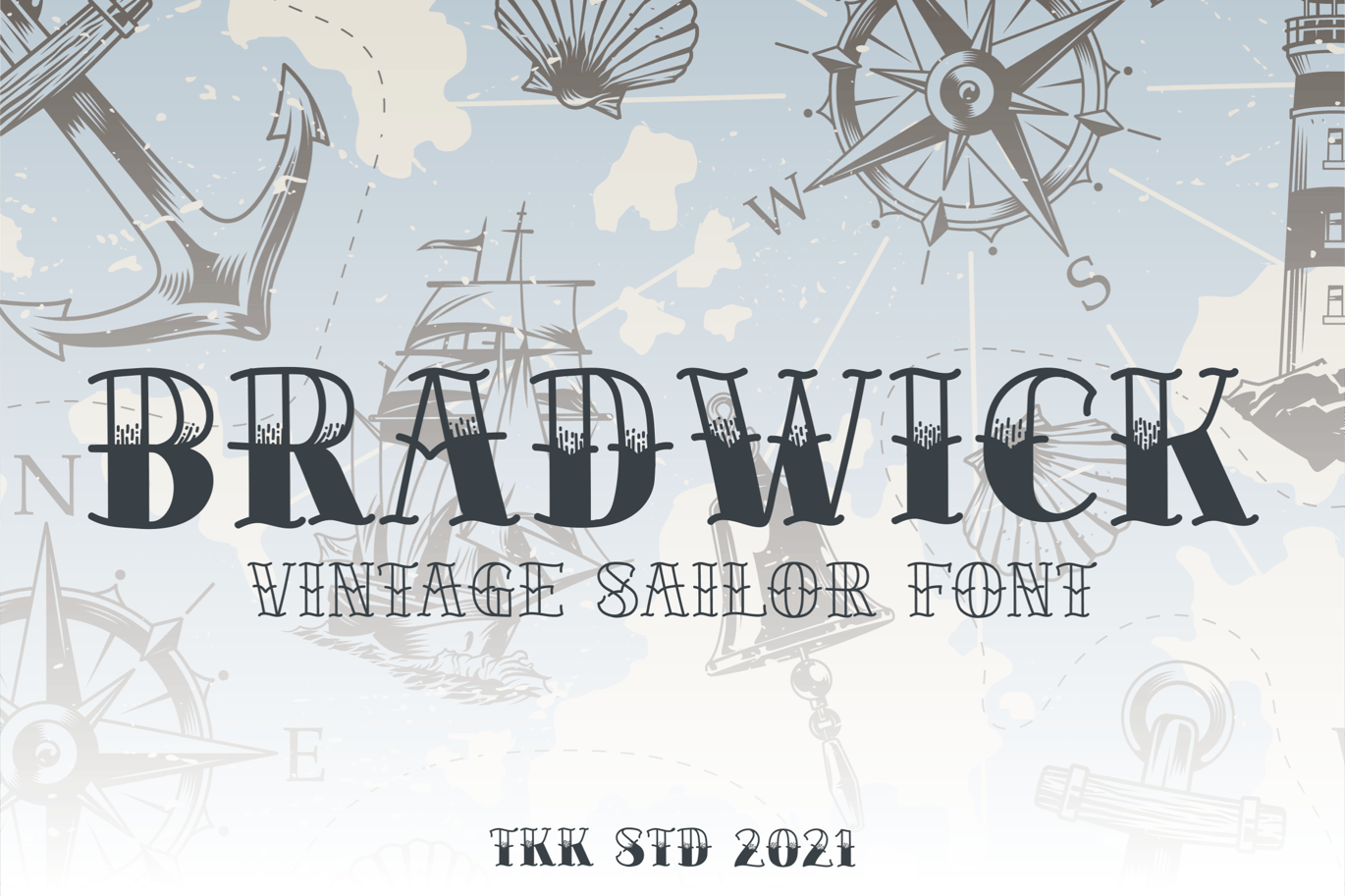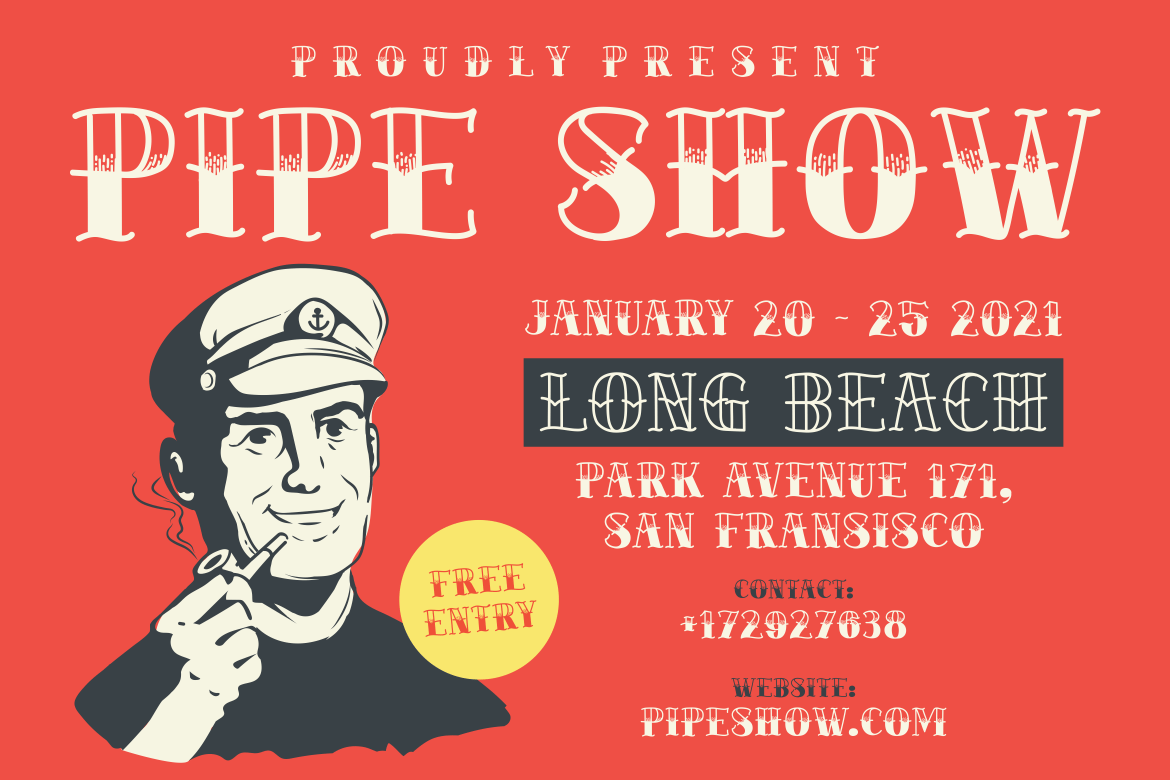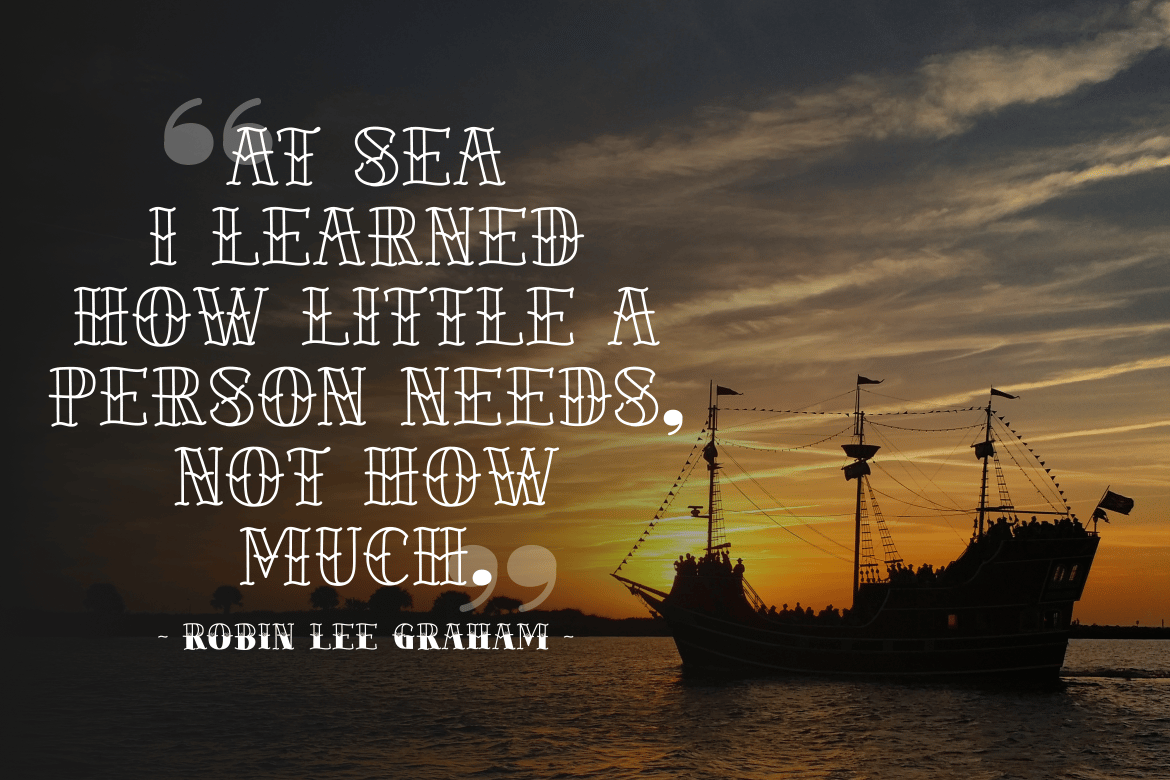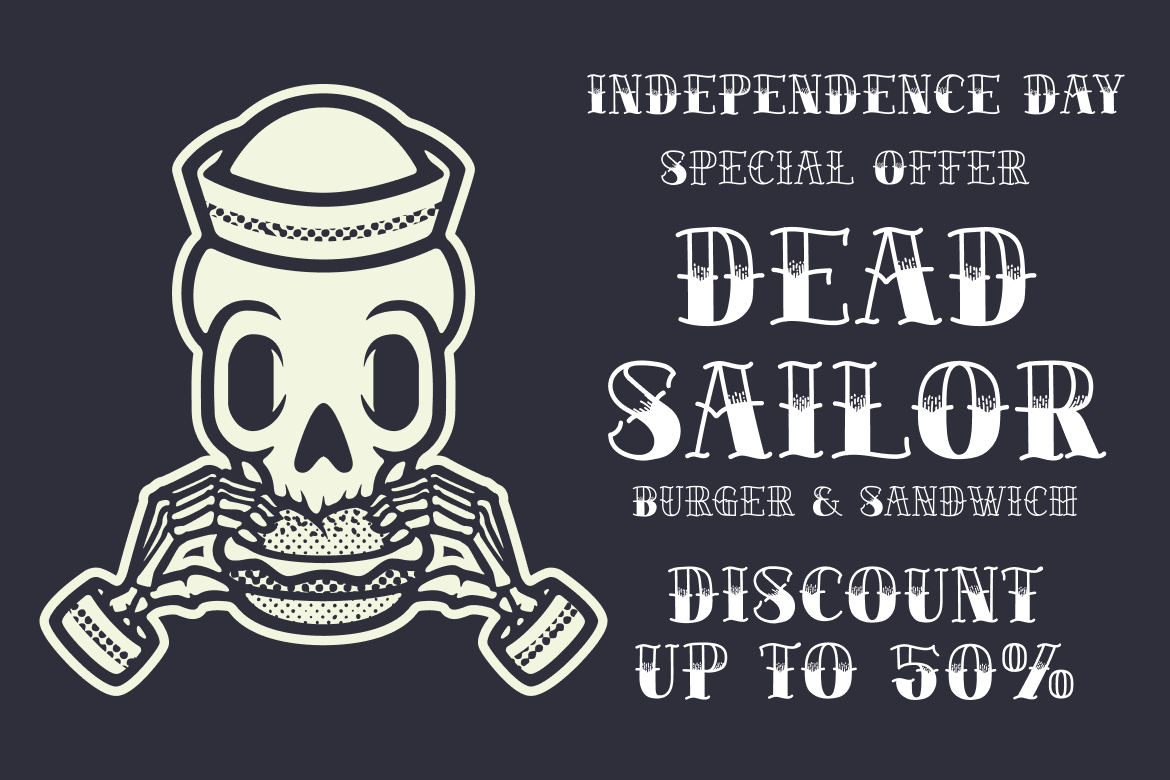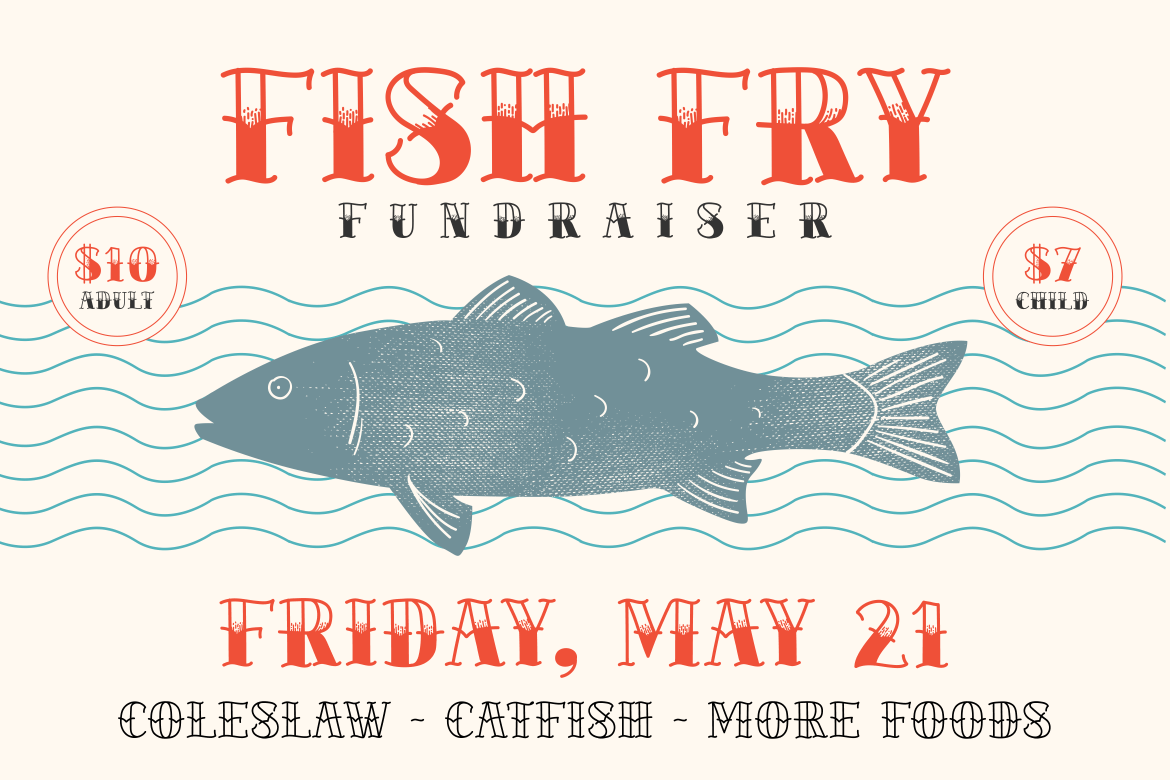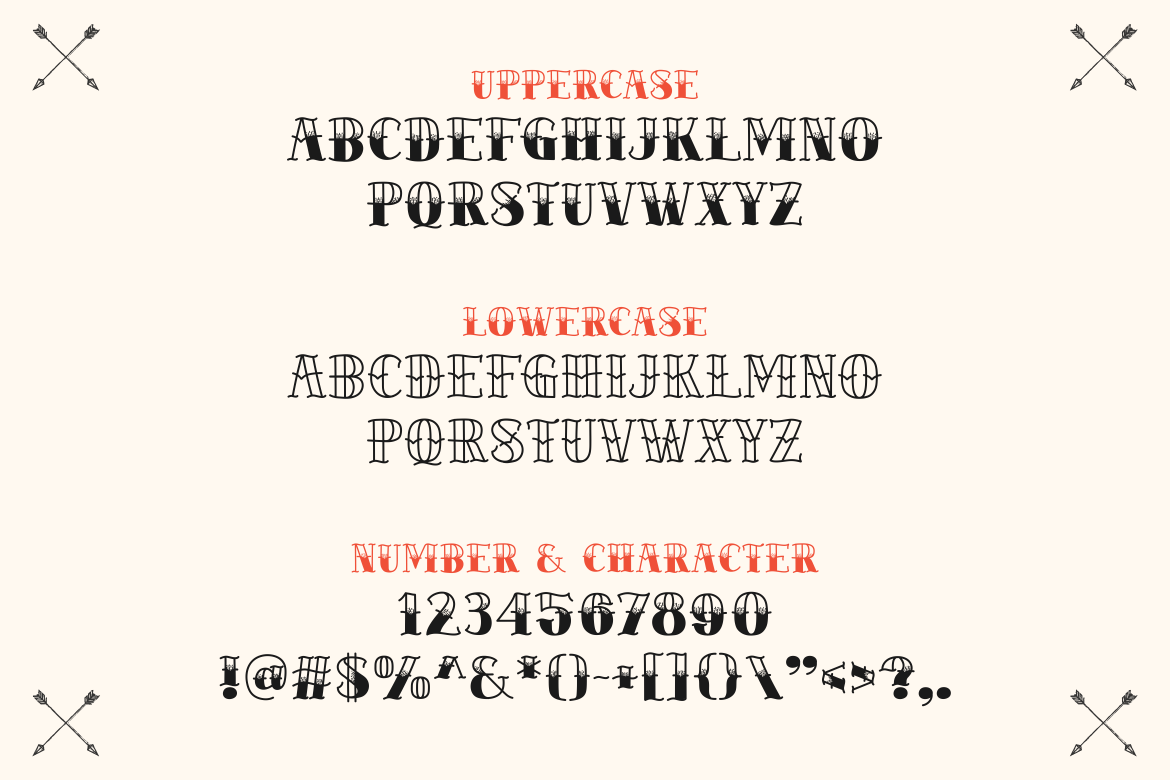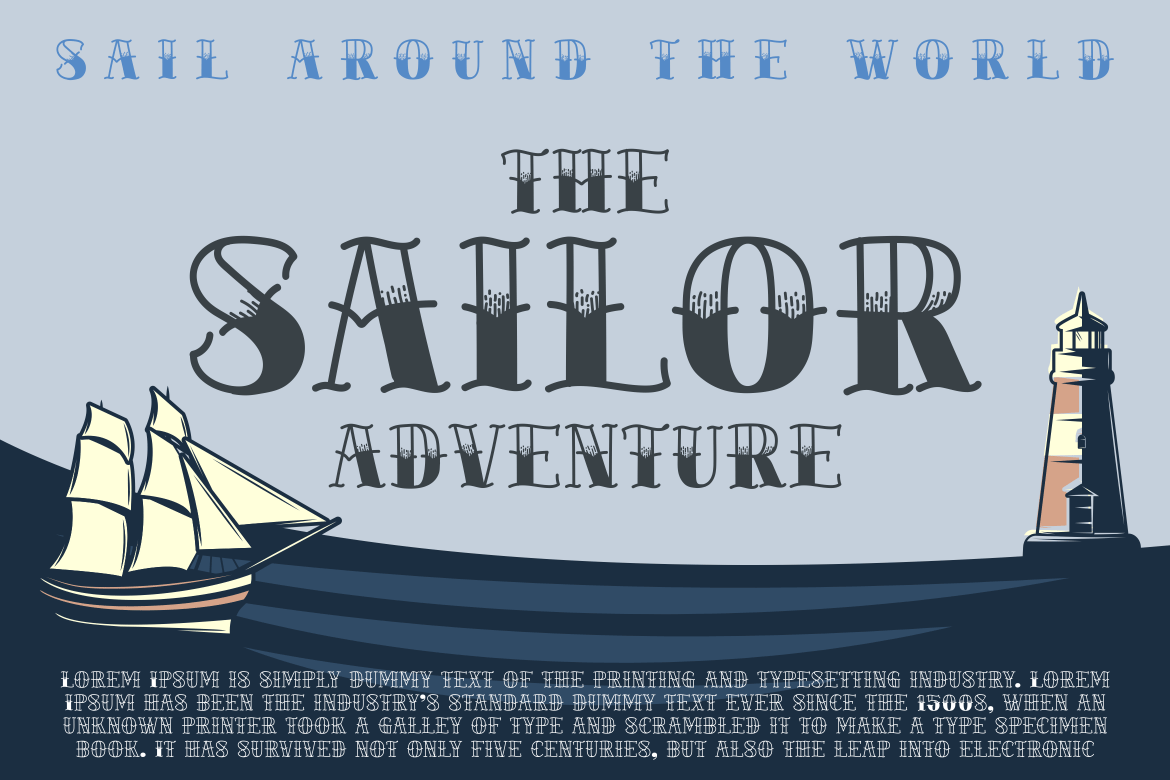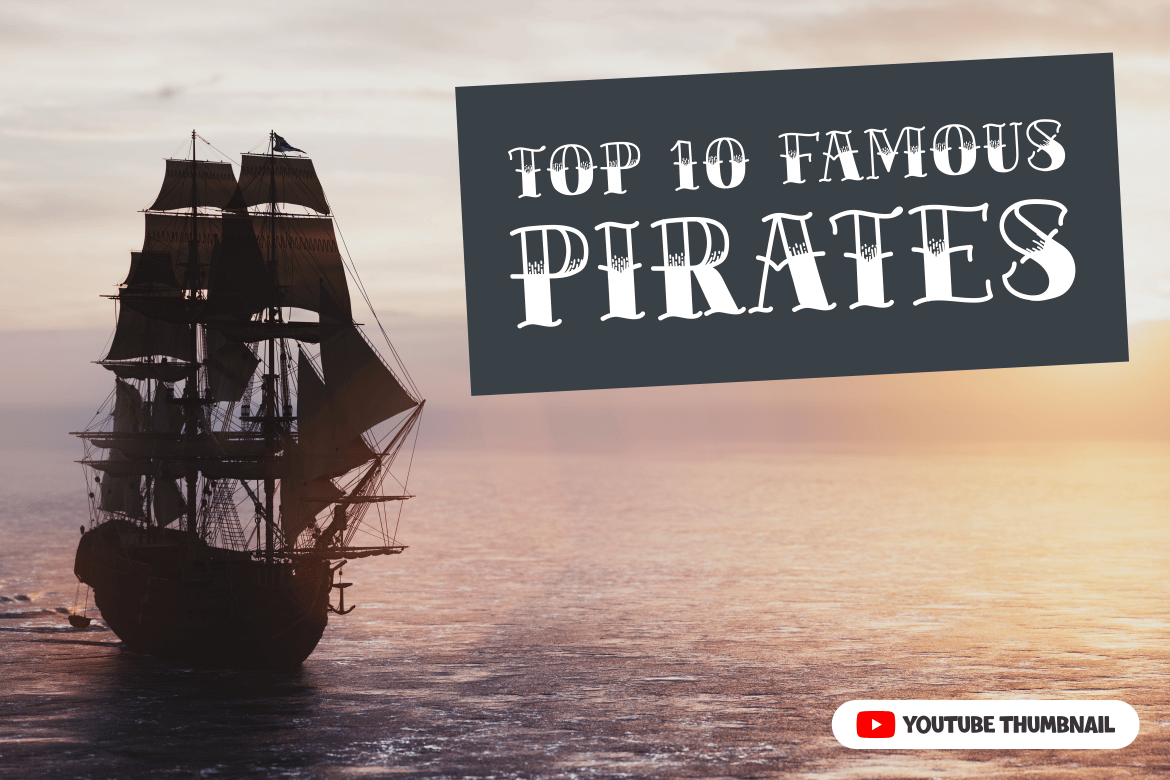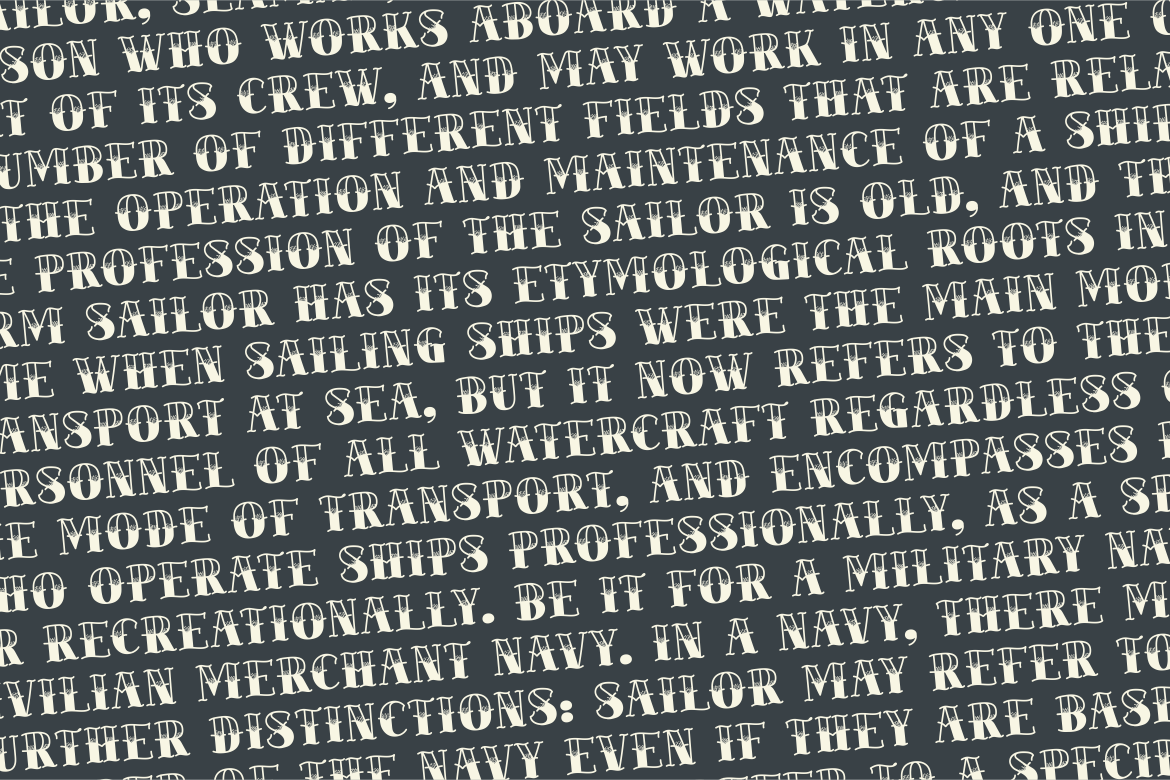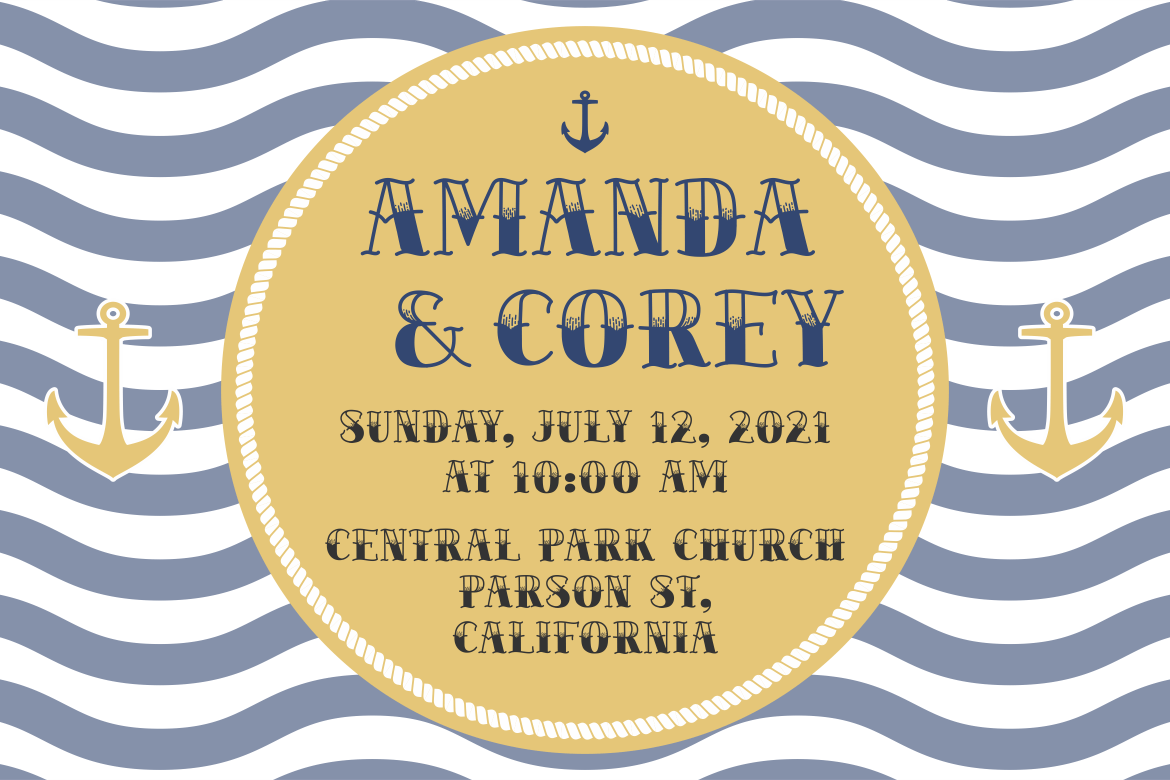
Bold Vintage Tattoo Font – Bradwick
Sail into the timeless world of nautical typography with Bradwick, a bold vintage sailor font that brings the spirit of sea voyages, naval traditions, and tattoo culture into your designs. Inspired by classic maritime lettering and old-school tattoo aesthetics, Bradwick is perfect for branding, posters, whiskey labels, bar signage, and vintage-themed designs. Whether you’re designing a pub logo, maritime apparel, or a tattoo-inspired poster, this font delivers an authentic handcrafted feel with a bold, adventurous attitude.
- Vintage Maritime Aesthetic – Inspired by classic sailor tattoos, naval insignias, and maritime lettering.
- Perfect for Branding & Packaging – Ideal for whiskey labels, bar signage, tattoo studios, and handcrafted goods.
- Bold & Textured Design – Creates a rugged, timeless impression with an old-school handcrafted look.
- Versatile Applications – Great for posters, logos, apparel branding, and nautical-themed designs.
- Tattoo-Ready Style – A must-have for tattoo-inspired typography projects.
Bradwick is crafted for designers, brands, and creatives looking for a bold and adventurous typeface with strong sailor heritage. Whether for bar branding, nautical-themed event posters, classic tattoo art, or whiskey bottle labels, Bradwick embodies the fearless spirit of the sea.